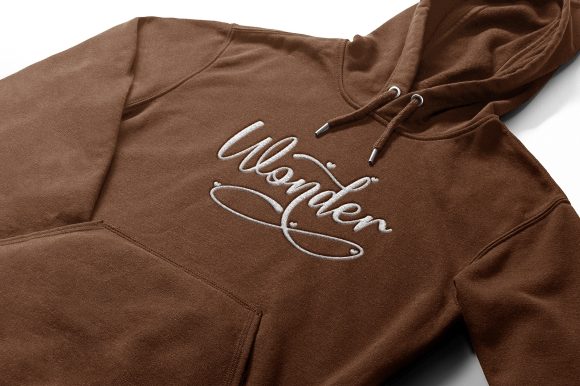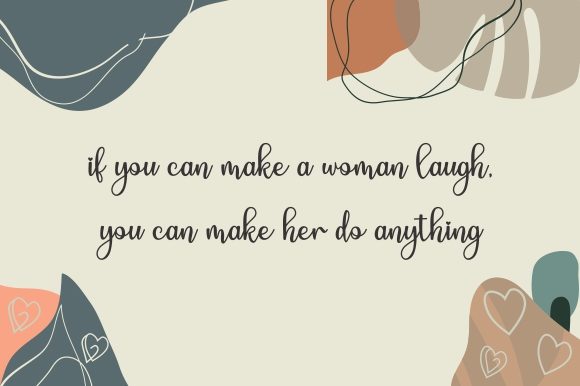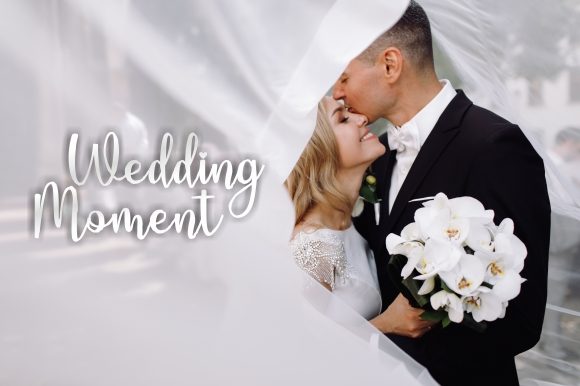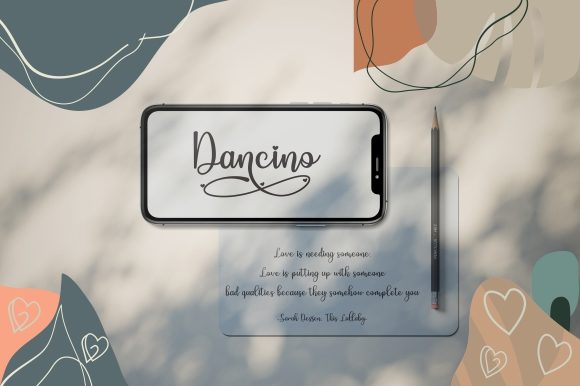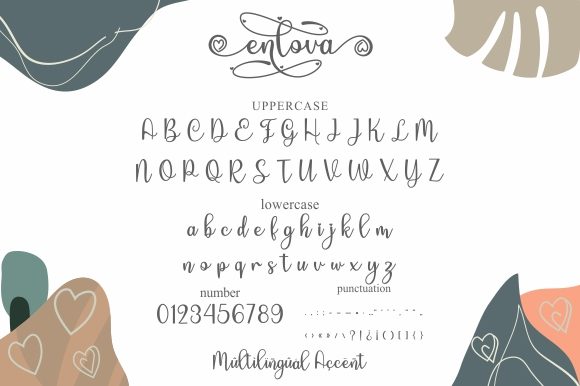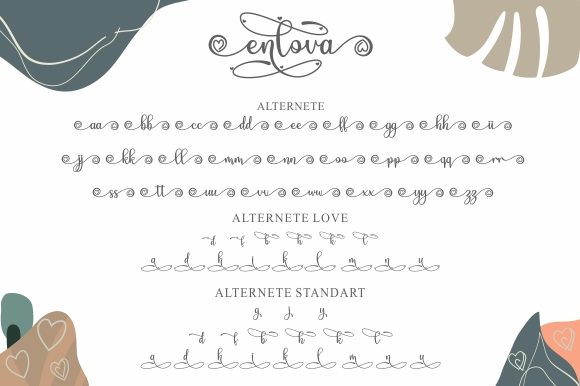
Introducing Enlova Font: Elevate Your Designs with Elegance and Sophistication
Are you a designer or crafter looking for a font that exudes elegance and sophistication? Look no further than Enlova Font. This beautiful, handwritten font is perfect for those who want to add a touch of class and refinement to their projects. In this article, we’ll take a closer look at Enlova Font and explore its features, benefits, and uses.
What is Enlova Font?
Enlova Font is an elegant and flowing handwritten font that is sure to capture your heart. Its beautiful, cursive script features a varying baseline, smooth lines, and gorgeous glyphs that will make your designs stand out. With its PUA (Private Use Area) encoding, you can easily access all of the glyphs and swashes, making it easy to customize your text.
Key Features of Enlova Font
- Elegant and Flowing Script: Enlova Font features a beautiful, handwritten script that is both elegant and flowing.
- PUA Encoded: With PUA encoding, you can easily access all of the glyphs and swashes, making it easy to customize your text.
- Varying Baseline: The font features a varying baseline, which adds to its elegant and sophisticated feel.
- Smooth Lines and Glyphs: The font has smooth lines and gorgeous glyphs that will make your designs stand out.
- Stunning Alternates: Enlova Font also features stunning alternates, which give you even more options for customizing your text.
Benefits of Using Enlova Font
So, why should you choose Enlova Font for your designs? Here are just a few benefits of using this beautiful font:
- Adds Elegance and Sophistication: Enlova Font is perfect for adding a touch of elegance and sophistication to your designs.
- Versatile: The font is versatile and can be used for a variety of projects, from wedding invitations to branding and packaging.
- Contemporary and Fresh: Despite its classic, calligraphic influences, Enlova Font feels contemporary and fresh, making it perfect for modern designs.
Uses for Enlova Font
So, what can you use Enlova Font for? The possibilities are endless! Here are a few ideas to get you started:
- Wedding Invitations: Enlova Font is perfect for wedding invitations, with its elegant and sophisticated script.
- Branding and Packaging: The font is also great for branding and packaging, adding a touch of class and refinement to your products.
- Signage and Displays: Enlova Font can be used for signage and displays, making it perfect for businesses and events.
- Digital Designs: The font can also be used for digital designs, such as social media graphics and website headers.
In conclusion, Enlova Font is a beautiful, elegant, and sophisticated handwritten font that is perfect for designers and crafters. With its PUA encoding, varying baseline, smooth lines, and gorgeous glyphs, it’s easy to see why this font is a must-have for any design project. Whether you’re looking to add a touch of elegance to your wedding invitations or create a sophisticated brand identity, Enlova Font is the perfect choice. So why wait? Fall in love with Enlova Font and bring your projects to the highest levels!